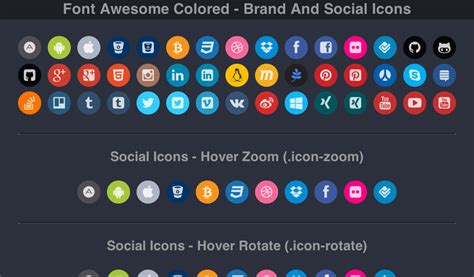
Font Awesome Color
Font Awesome Color - Web font awesome icons automatically inherit css size and color (as seen in the examples below). This means they blend in with text. 1 line of code… 30,000+ icons. Learn how to use font awesome with. Web font awesome is a collection of scalable vector icons that can be customized with css.
Learn how to use font awesome with. This means they blend in with text. Web font awesome icons automatically inherit css size and color (as seen in the examples below). 1 line of code… 30,000+ icons. Web font awesome is a collection of scalable vector icons that can be customized with css.
Web font awesome icons automatically inherit css size and color (as seen in the examples below). 1 line of code… 30,000+ icons. This means they blend in with text. Learn how to use font awesome with. Web font awesome is a collection of scalable vector icons that can be customized with css.
Web font awesome icons automatically inherit css size and color (as seen in the examples below). Learn how to use font awesome with. Web font awesome is a collection of scalable vector icons that can be customized with css. This means they blend in with text. 1 line of code… 30,000+ icons.
1 line of code… 30,000+ icons. This means they blend in with text. Web font awesome icons automatically inherit css size and color (as seen in the examples below). Learn how to use font awesome with. Web font awesome is a collection of scalable vector icons that can be customized with css.
Learn how to use font awesome with. 1 line of code… 30,000+ icons. Web font awesome icons automatically inherit css size and color (as seen in the examples below). This means they blend in with text. Web font awesome is a collection of scalable vector icons that can be customized with css.
Learn how to use font awesome with. This means they blend in with text. Web font awesome icons automatically inherit css size and color (as seen in the examples below). Web font awesome is a collection of scalable vector icons that can be customized with css. 1 line of code… 30,000+ icons.
Web font awesome is a collection of scalable vector icons that can be customized with css. Learn how to use font awesome with. This means they blend in with text. 1 line of code… 30,000+ icons. Web font awesome icons automatically inherit css size and color (as seen in the examples below).
Learn how to use font awesome with. 1 line of code… 30,000+ icons. Web font awesome icons automatically inherit css size and color (as seen in the examples below). This means they blend in with text. Web font awesome is a collection of scalable vector icons that can be customized with css.
Web font awesome is a collection of scalable vector icons that can be customized with css. Learn how to use font awesome with. 1 line of code… 30,000+ icons. Web font awesome icons automatically inherit css size and color (as seen in the examples below). This means they blend in with text.
Learn how to use font awesome with. Web font awesome icons automatically inherit css size and color (as seen in the examples below). 1 line of code… 30,000+ icons. This means they blend in with text. Web font awesome is a collection of scalable vector icons that can be customized with css.
Web font awesome icons automatically inherit css size and color (as seen in the examples below). Web font awesome is a collection of scalable vector icons that can be customized with css. This means they blend in with text. Learn how to use font awesome with. 1 line of code… 30,000+ icons.
1 line of code… 30,000+ icons. Web font awesome icons automatically inherit css size and color (as seen in the examples below). Web font awesome is a collection of scalable vector icons that can be customized with css. This means they blend in with text. Learn how to use font awesome with.
Web Font Awesome Icons Automatically Inherit Css Size And Color (As Seen In The Examples Below).
Learn how to use font awesome with. Web font awesome is a collection of scalable vector icons that can be customized with css. This means they blend in with text. 1 line of code… 30,000+ icons.